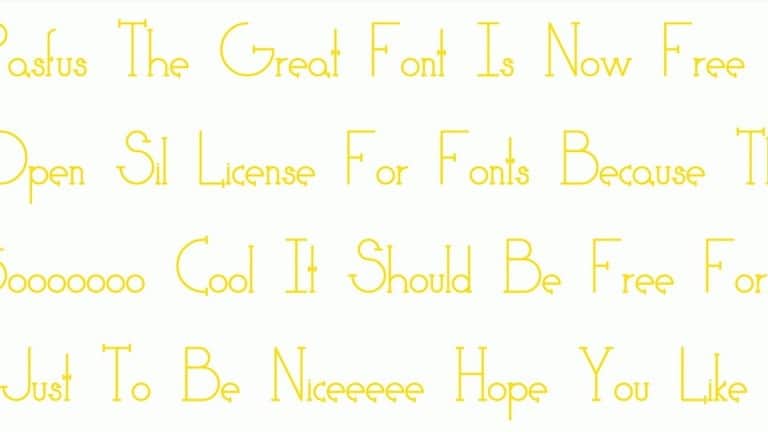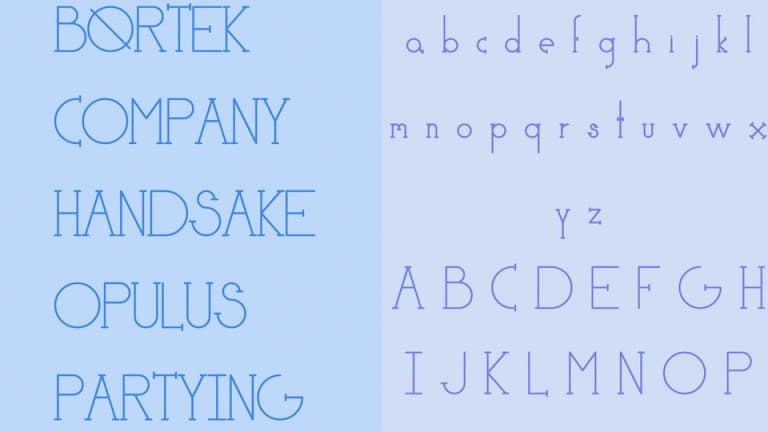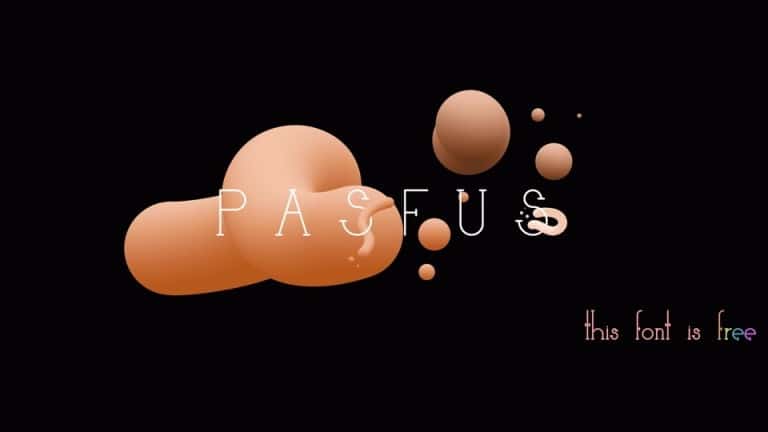
Pasfus Display Font
Pasfus Display Font. Cute art deco typeface has beautiful letters reminiscent of 1920s style. Clean and simple.Made from font designer named Roy Bristros. And It’s a lovely geometric serif typeface with a cute retro look. It’s perfect for minimalist branding, notes, quotes, cards and crafts.